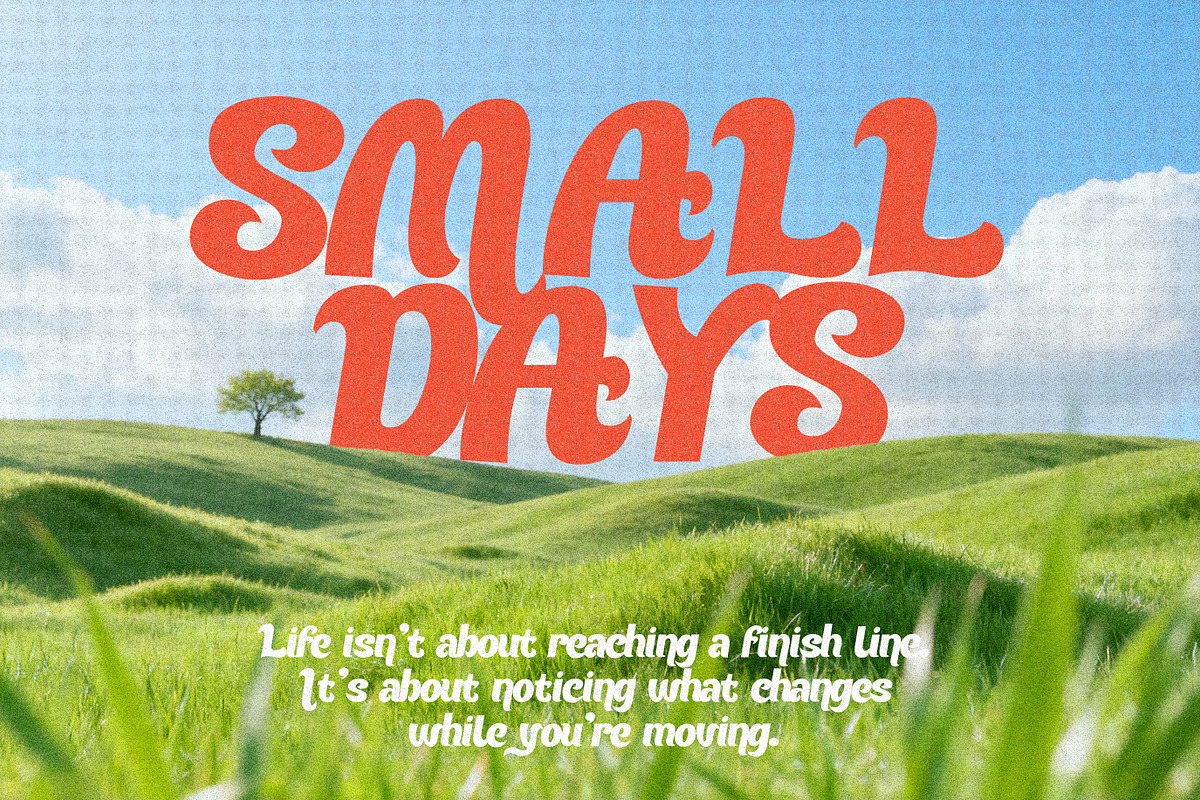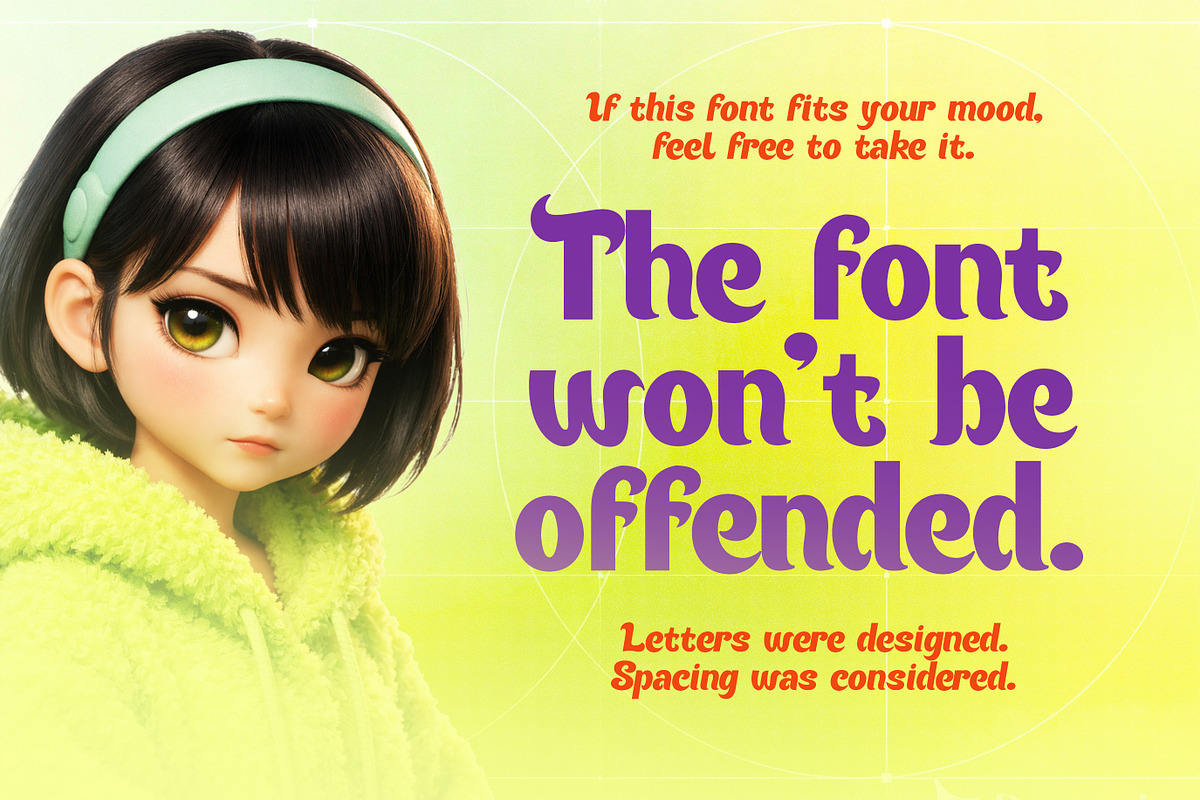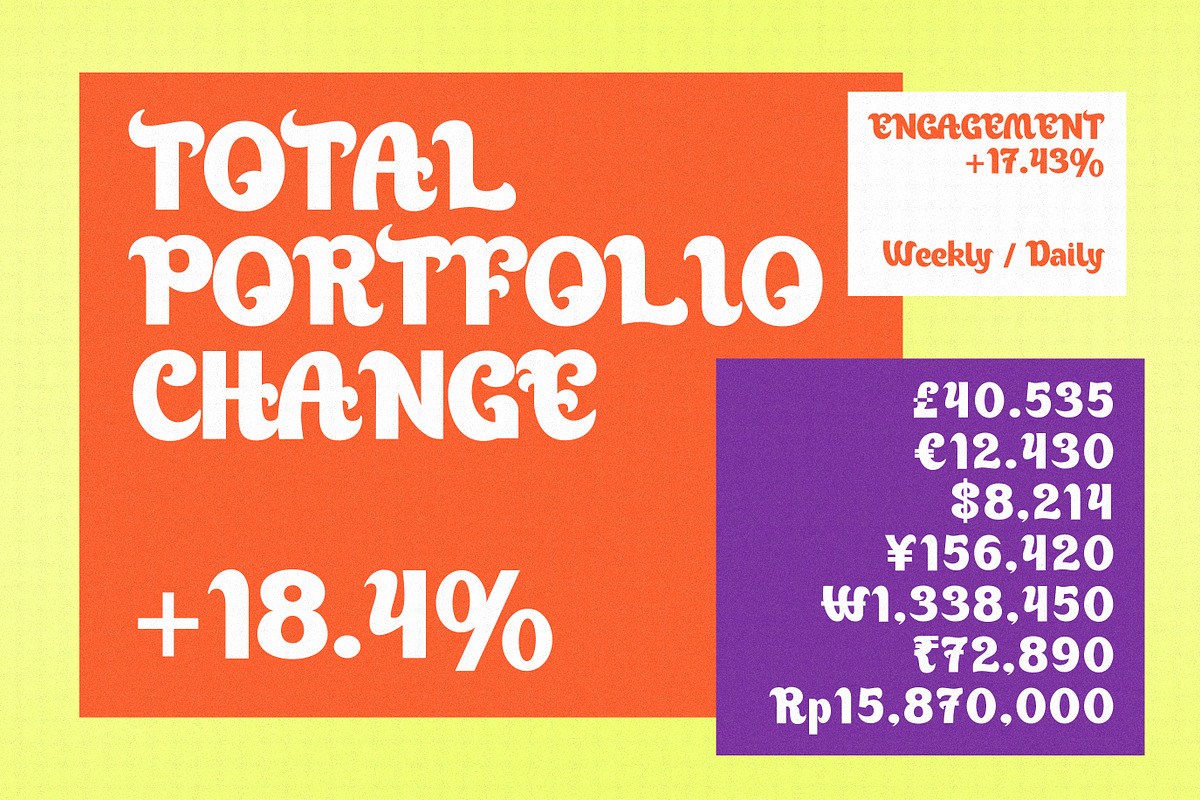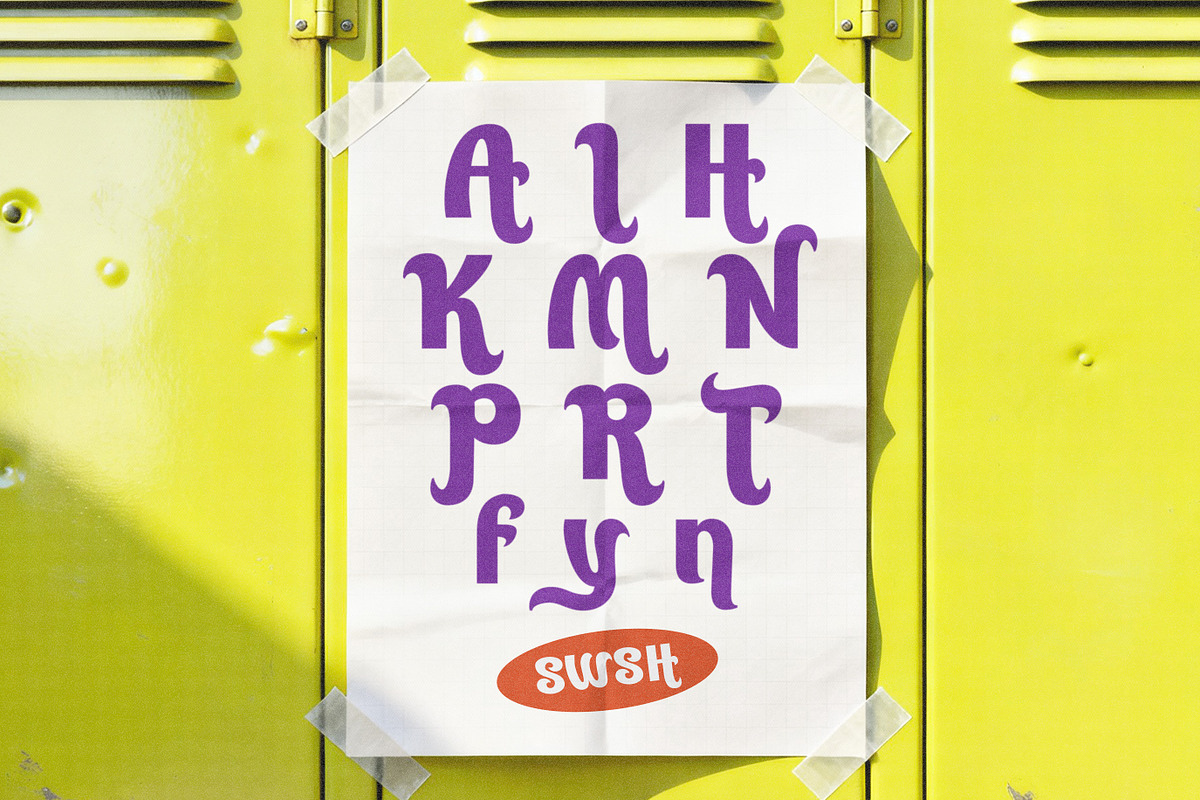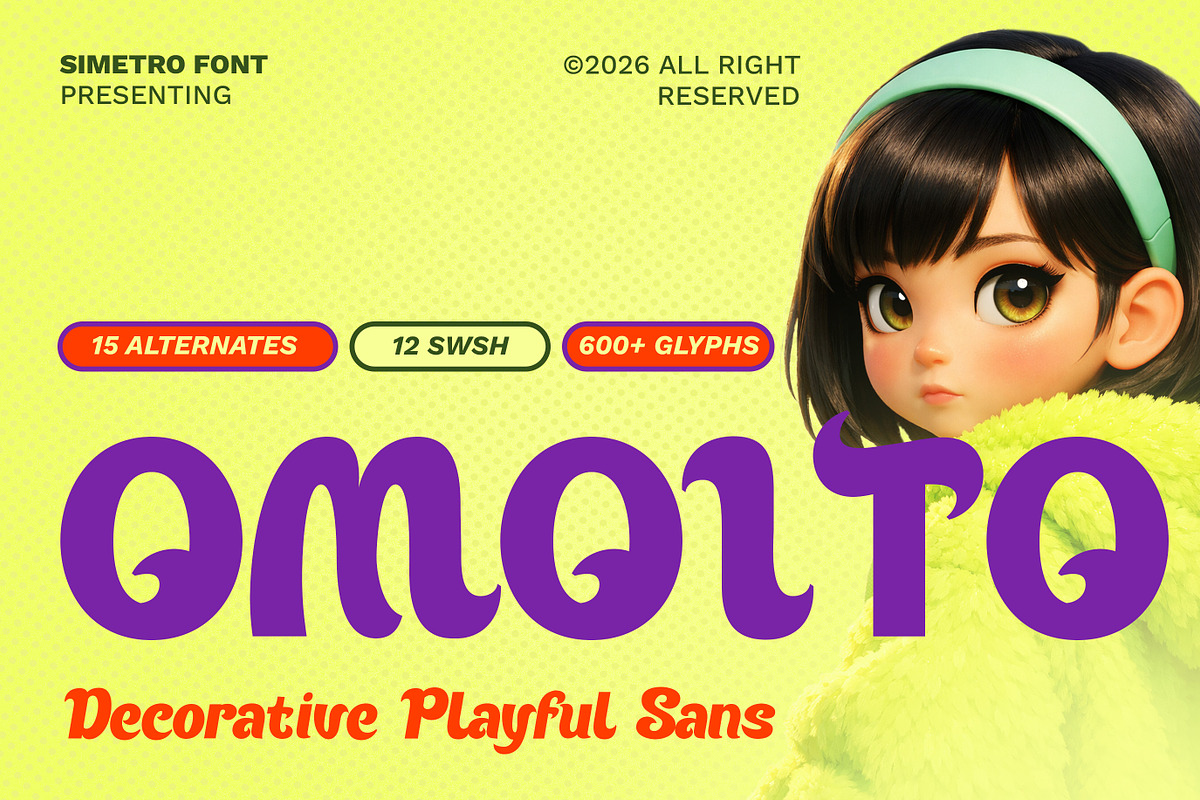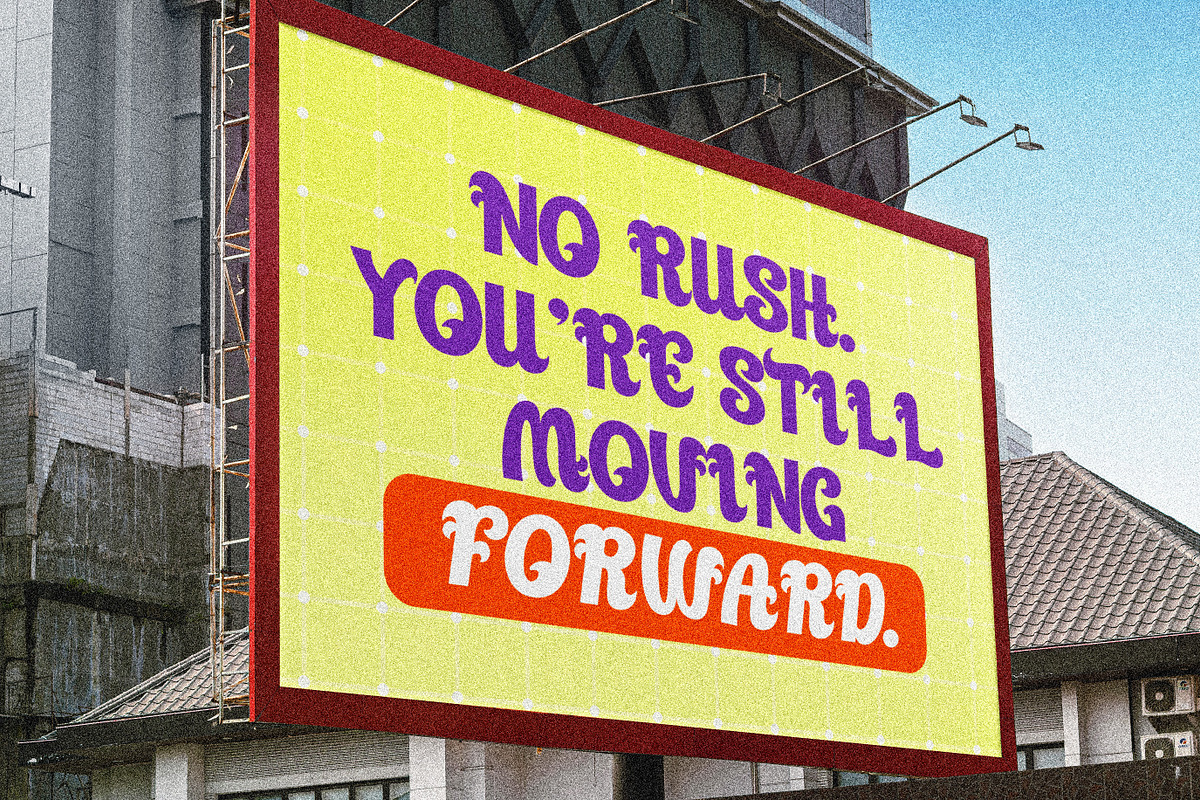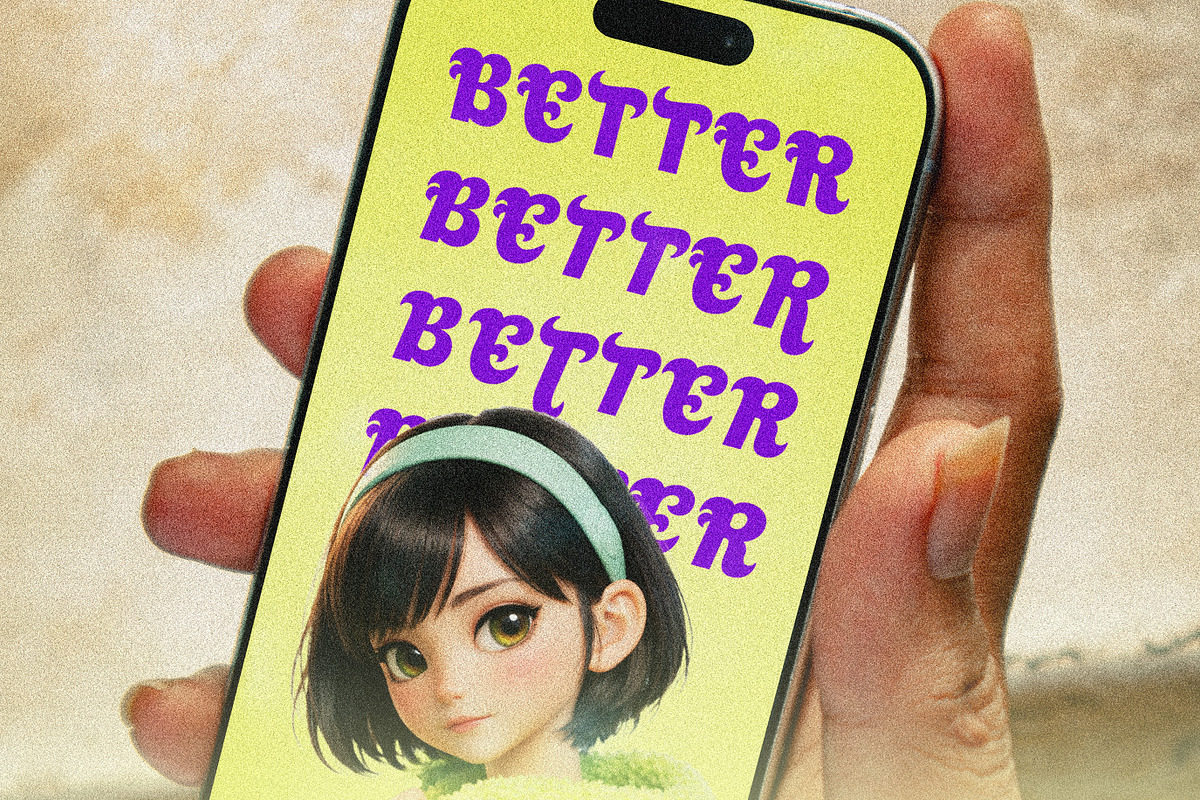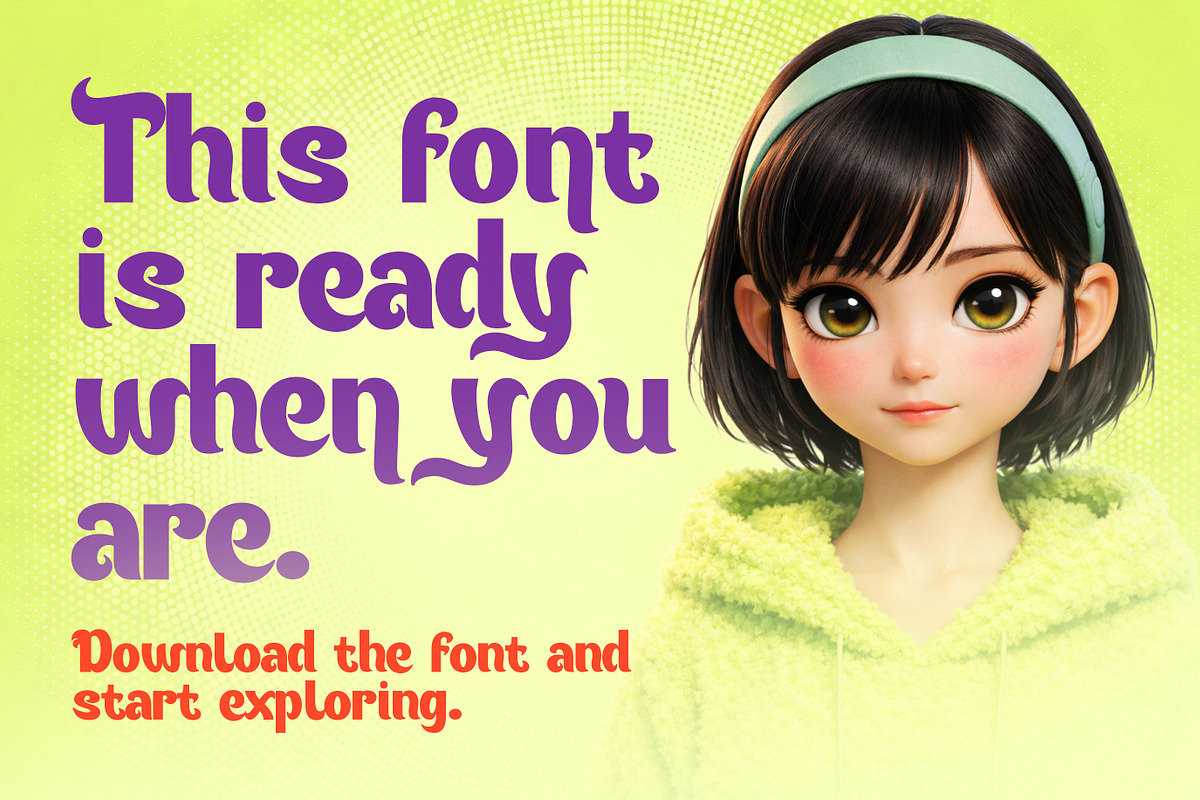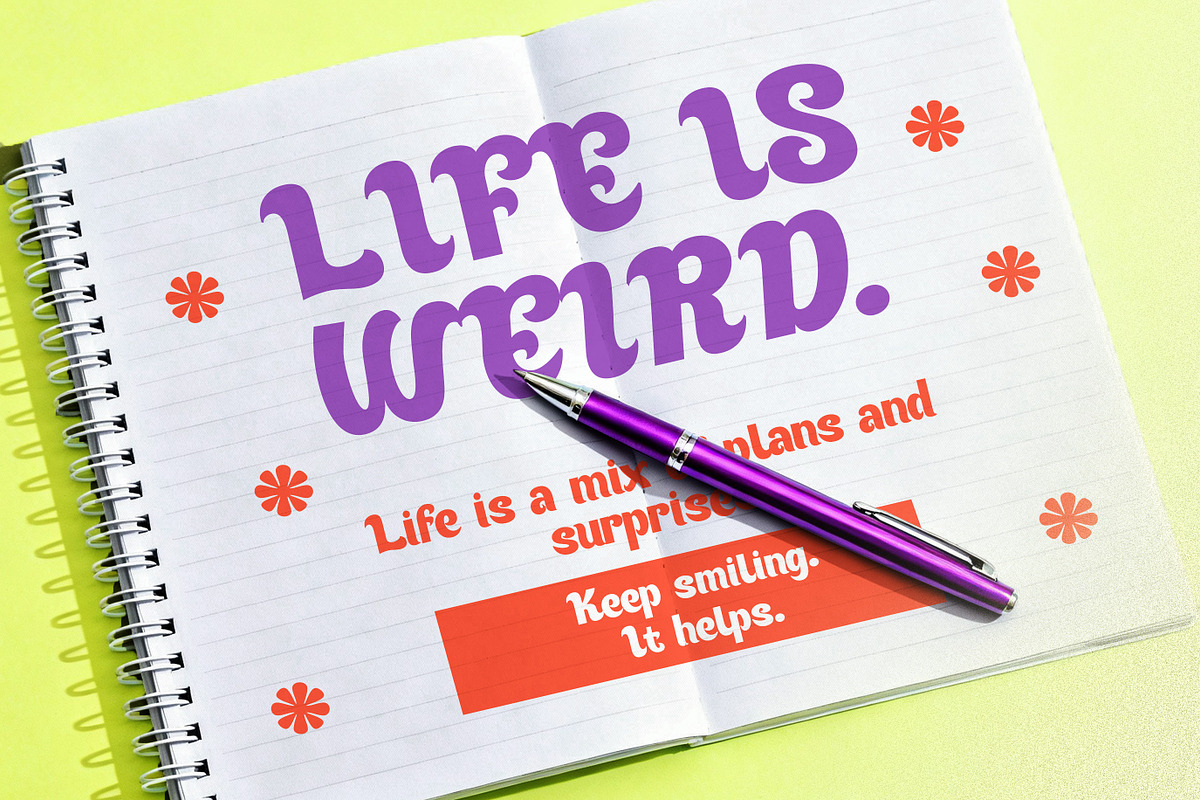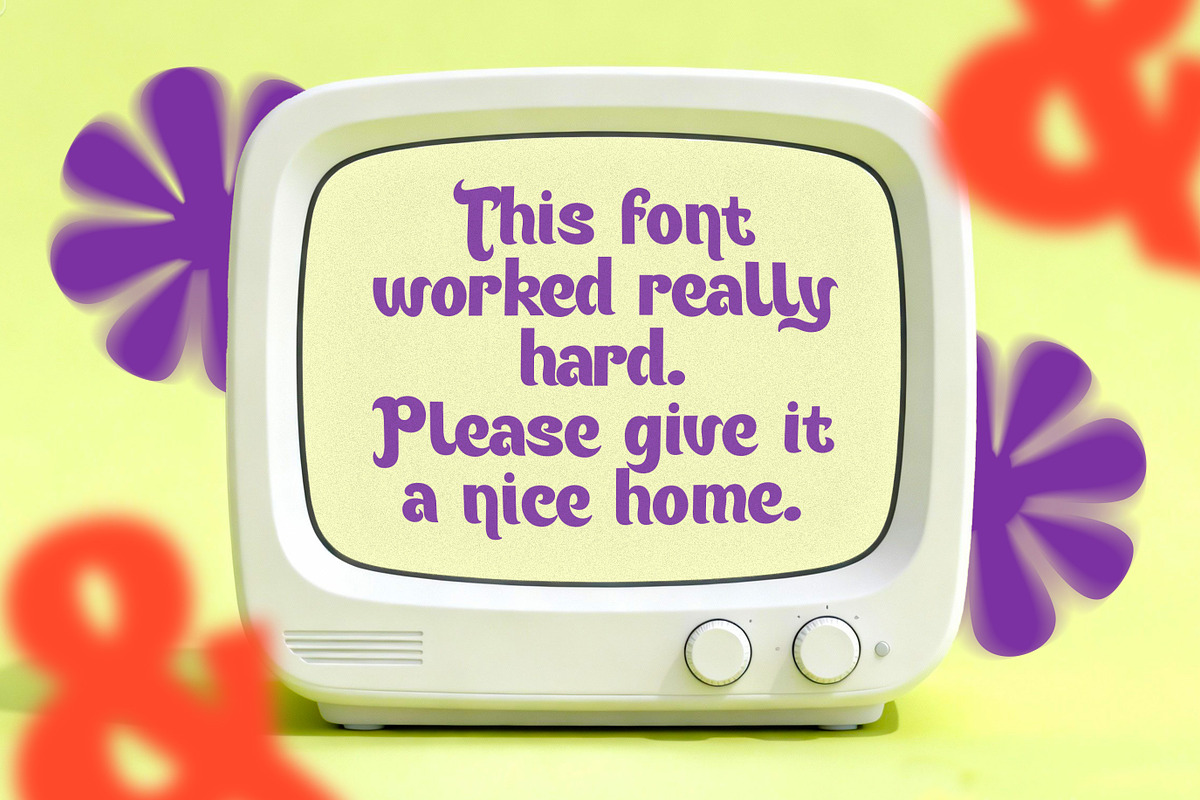
Omoito - Decorative Playful Sans
Omoito Decorative Playful Sans is a bold and joyful sans serif font designed to bring energy, warmth, and personality into your typography. Its rounded forms, soft terminals, and slightly exaggerated proportions create a friendly and playful visual tone that feels approachable and lively.
This font is built for display use where expression matters more than strict formality. Omoito works exceptionally well for kids-related projects, posters, packaging, branding, social media graphics, merchandise, stickers, book covers, and creative headlines that need to feel fun and inviting.
Despite its decorative nature, Omoito maintains good readability thanks to clean letter construction and balanced spacing. It includes a broad set of glyphs such as uppercase, lowercase, numerals, punctuation, symbols, and multilingual characters, making it flexible for various design needs.